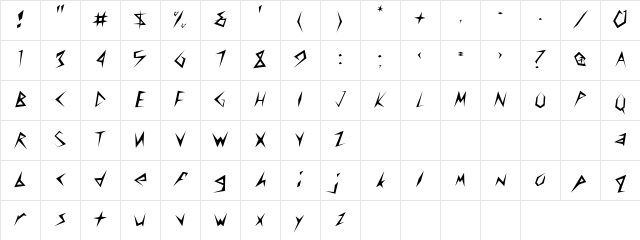
Newt Normal Free Font
Newt Normal
Design Context for Newt
Newt is a composed and adaptable typeface that performs quietly and consistently across a wide range of design contexts.